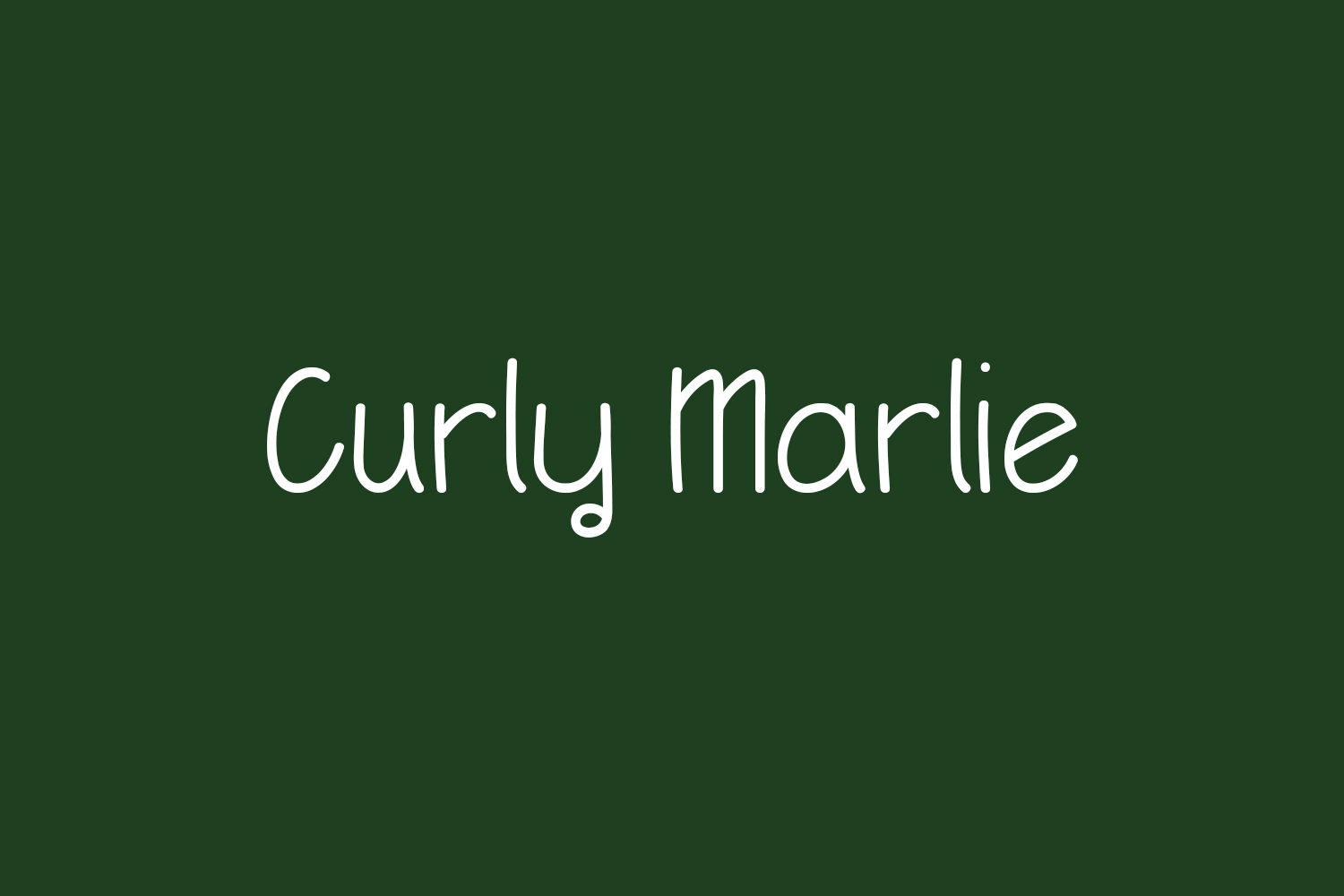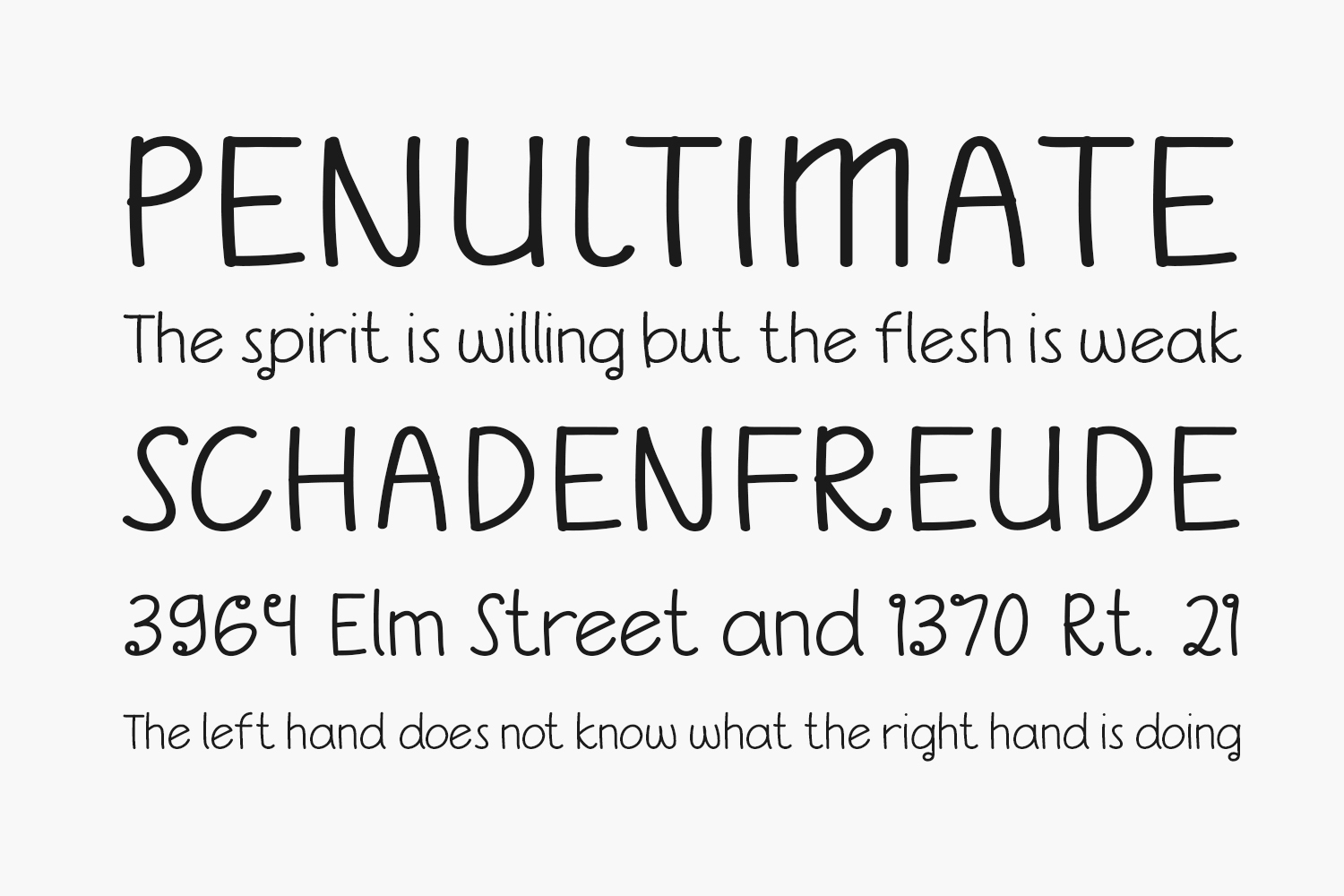
Curly Marlie Free Font is a font that evokes feelings of simplicity and elegance. Its minimal and neat handwriting style gives it a timeless and refined feel, perfect for creating designs that exude a sense of sophistication and class. The font’s curly and delicate strokes give it an organic and human touch, making it ideal for creating personalized and heartfelt designs. The free version can be easily integrated into any design software. Curly Marlie font is perfect for invitations, handwritten notes, and any project that aims to convey a sense of warmth, elegance and personality. It has the ability to make your designs stand out and look special, making your message even more meaningful.